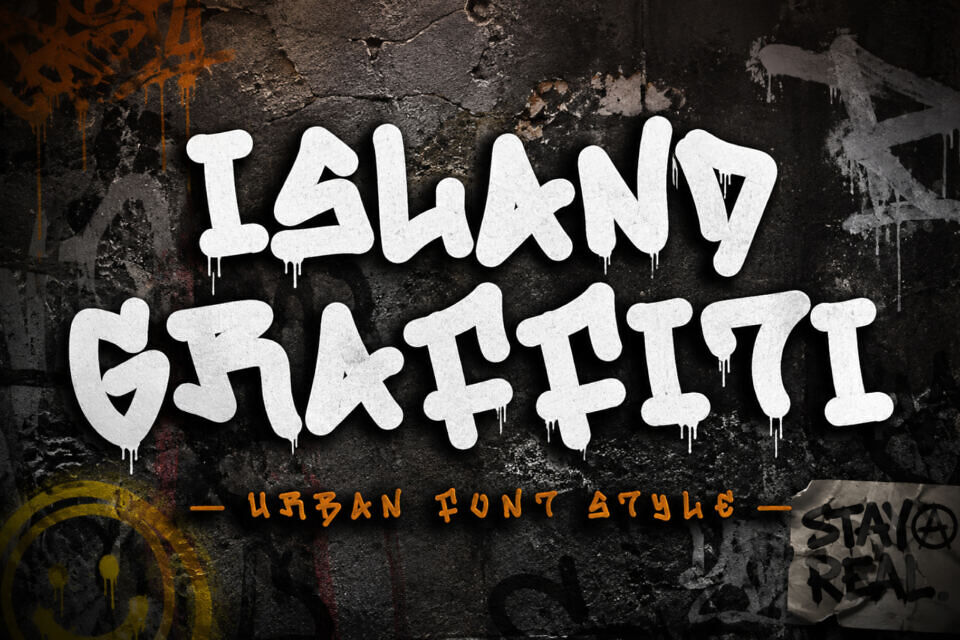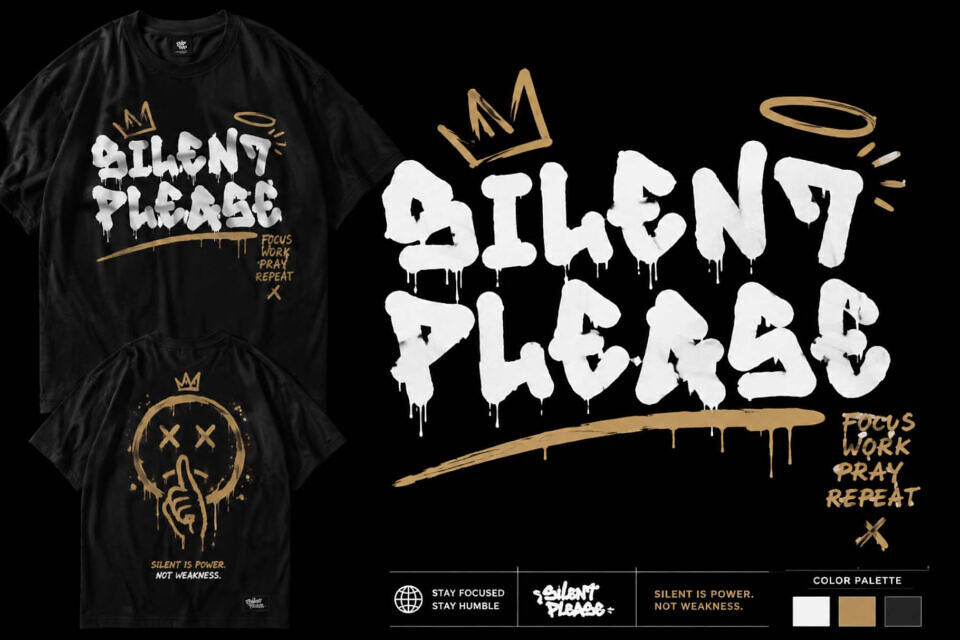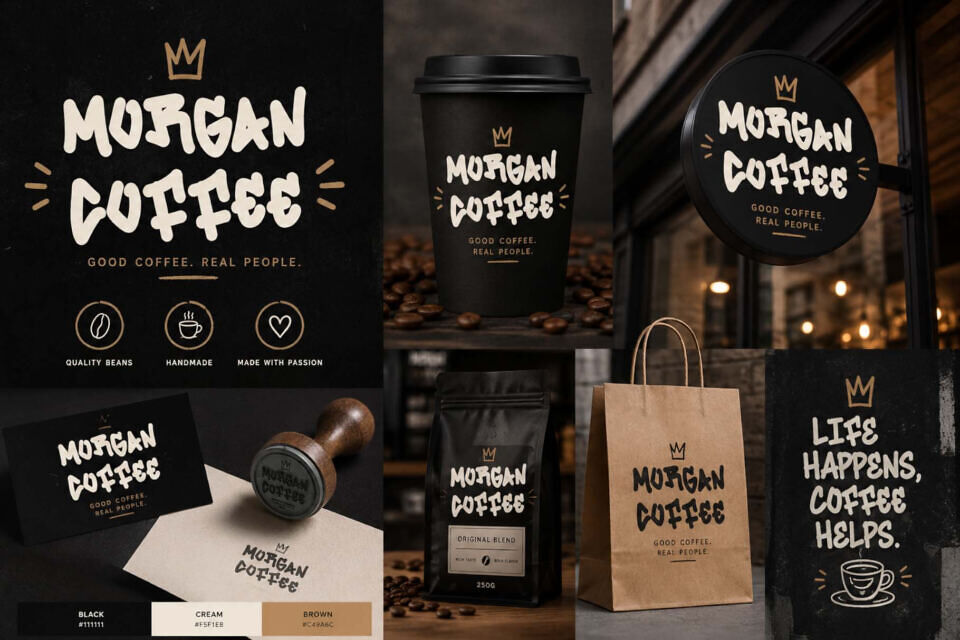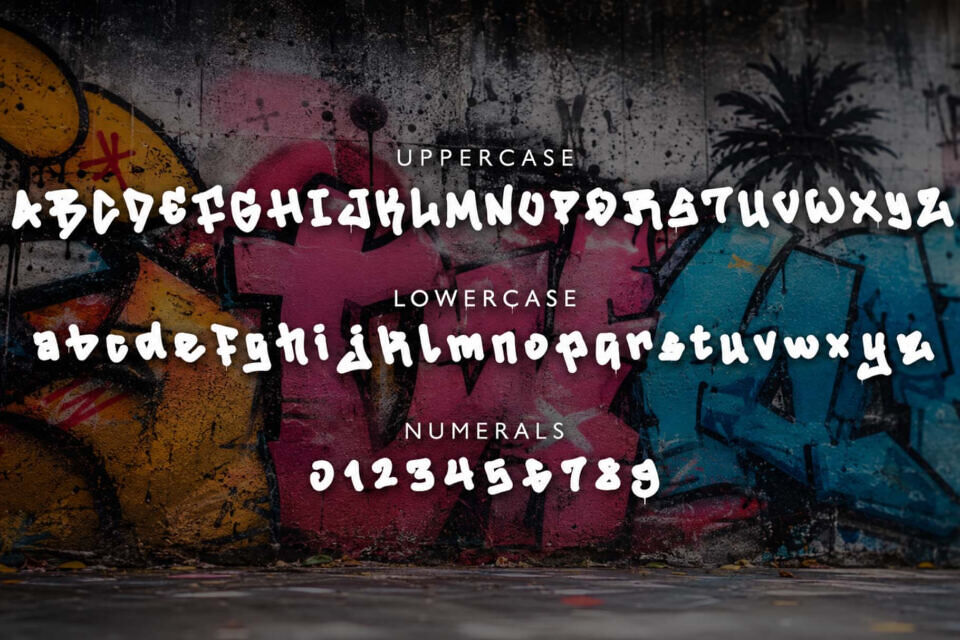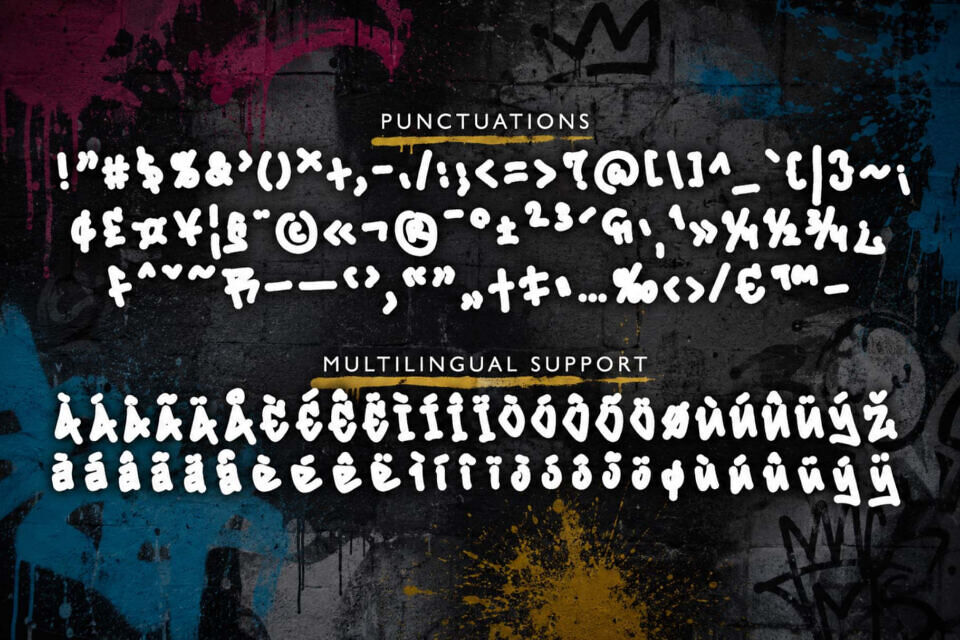
Island Graffiti Font
Island Graffiti is a graffiti font with elegant, blunt letter tips. It features uppercase and lowercase letters, numerals, punctuations, and multilingual support. It’s perfect for t-shirts, logos, banners, branding, stickers, tattoos, prints, and other uses. It’s perfect for summer, spring, vacation, holiday, Halloween, Christmas, Easter, and more.